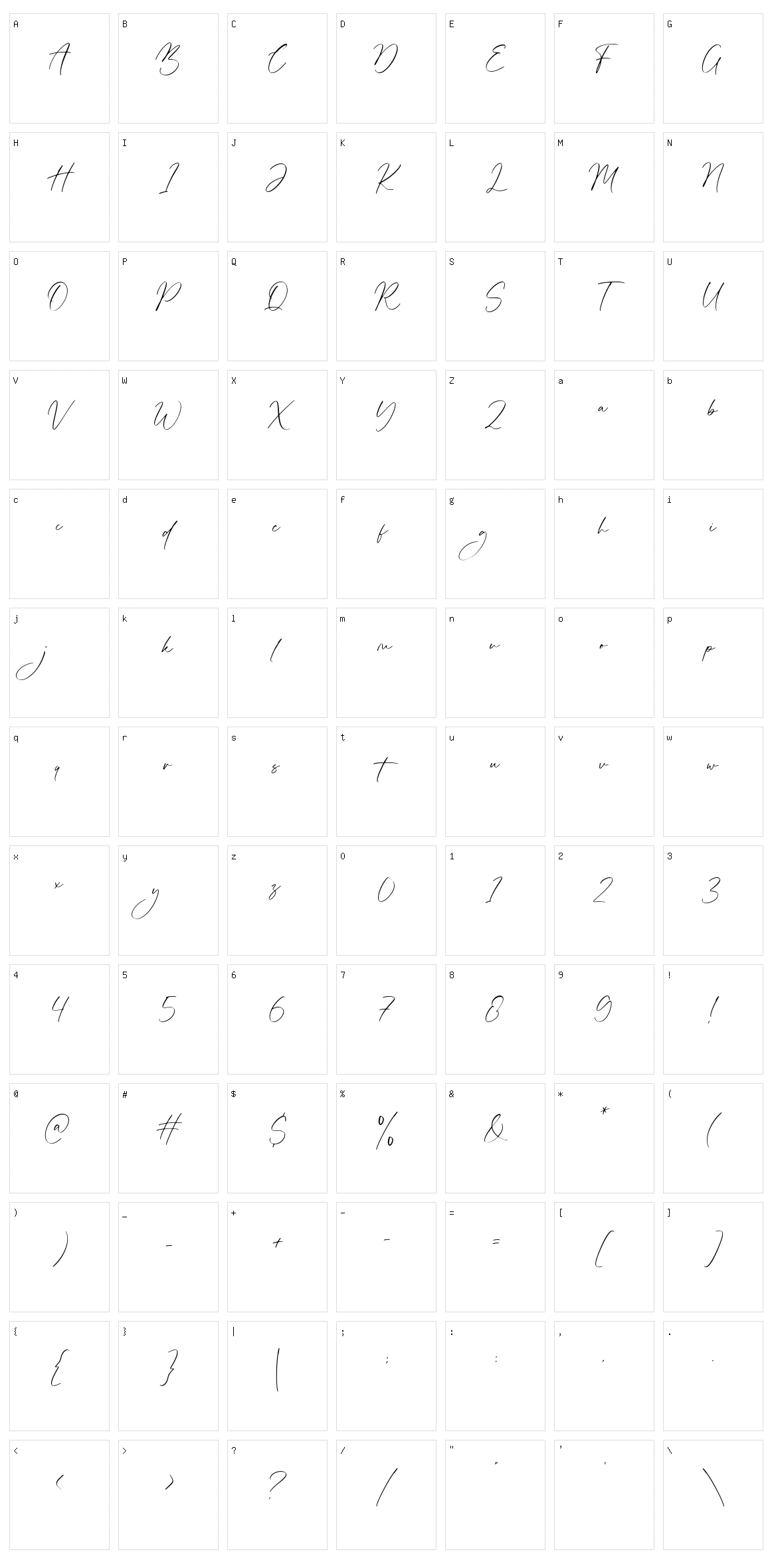
Brilliant
Designed by: Aestherica Studio
Description: The free font Brilliant is carefully designed by Aestherica Studio, showcasing a thoughtful balance of creativity and usability and falls under the Script font style. When you download the ZIP file, it contains only 888.75 KB of font files, making it lightweight and quick to download. Please review the license details below to understand permitted usage and distribution rights. If license information is not available, we recommend using this font for personal projects only or contacting the author directly for commercial usage permissions.